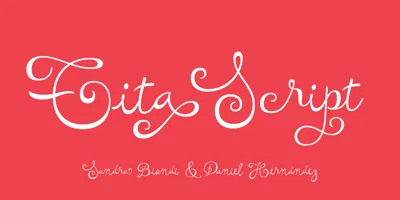
Tita Script
Tita Script Font
Tita Script Font is ideal for elegant wedding invitations, luxury brand logos, handwritten greeting cards, boutique signage, personal stationery designs, romantic poetry collections, intimate restaurant menus, and sophisticated calligraphy projects requiring feminine elegance.
What makes Tita Script Font exciting is its graceful femininity that embodies delicate beauty and sophisticated charm through flowing, handwritten-style letterforms. This enchanting typeface features elegant script characteristics with gentle curves and refined flourishes that evoke the timeless appeal of beautiful penmanship and personal correspondence, making it perfect for brands seeking to communicate intimacy, elegance, and heartfelt authenticity in their personal communications.
The Tita Script Font family includes regular weight with calligraphic variations, connecting ligatures, and decorative swashes that enhance the script aesthetic with handwritten elegance and romantic typography flourishes for intimate applications.
This beautiful typeface delivers exceptional feminine appeal and calligraphic sophistication, making Tita Script Font an essential resource for elegant and romantic design projects. The font's graceful character makes it perfect for brands wanting to convey personal touch and sophisticated femininity in their communications. Wedding planners and luxury stationery designers particularly value its ability to communicate romantic elegance and intimate beauty instantly to discerning clients. The elegantly designed letterforms ensure readability while preserving the delicate charm of handwritten script across all applications from wedding invitations to boutique branding materials. Whether you're creating materials for romantic celebrations or developing identity systems for feminine luxury brands, this font provides the perfect combination of script elegance and commercial appeal. Creative professionals consistently choose this typeface for projects requiring that ideal balance of handwritten authenticity and sophisticated presentation, making it invaluable for romantic communications that celebrate both personal intimacy and refined taste in today's digitally-driven but emotionally-conscious design landscape.